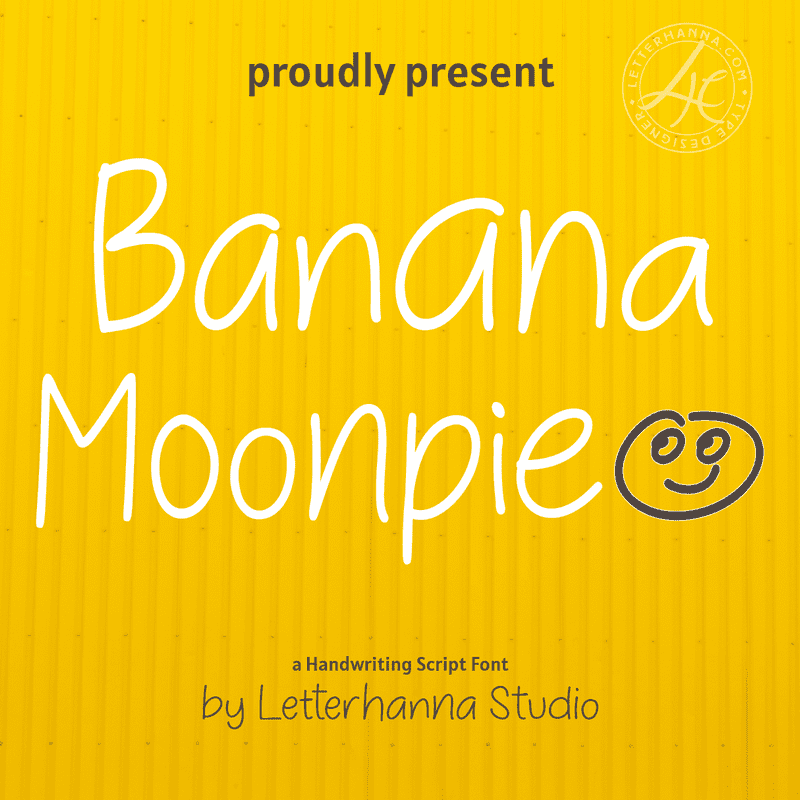
"Banana Moonpie" is a fresh and whimsical addition to the world of fonts. This unique sans serif handwritten font combines the casual charm of handwritten script with the clarity of a sans serif typeface, resulting in a delightful and versatile font that's as fun as its name suggests. THIS FONT is F ree for personal, Paid for commercial use By installing or using this font, you are hereby agree to this Product Usage Agreement: 1. This font is ONLY FOR PERSONAL USE 2. You are REQUIRES A LICENSE for PROMOTIONAL or COMMERCIAL USE 3. You cannot redistribute fonts because copyright is still with us. 4. You may not open, edit, or modify this font 5. For more information about movie license, broadcast license, and corporate license, please contact us. |